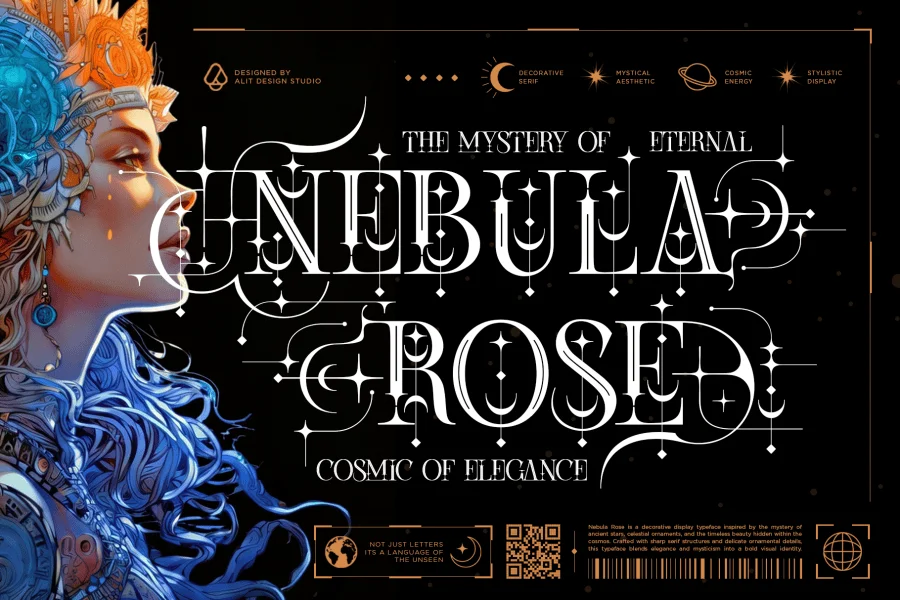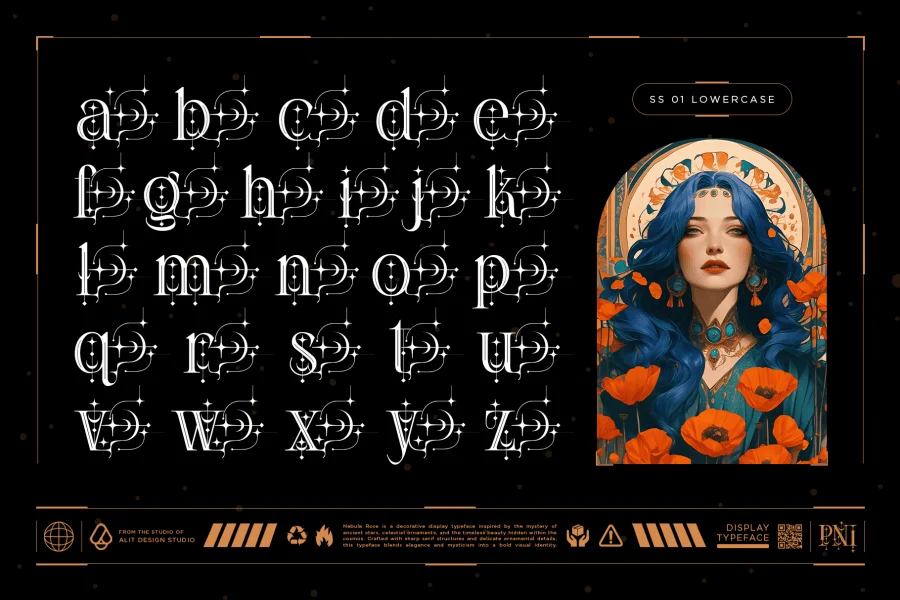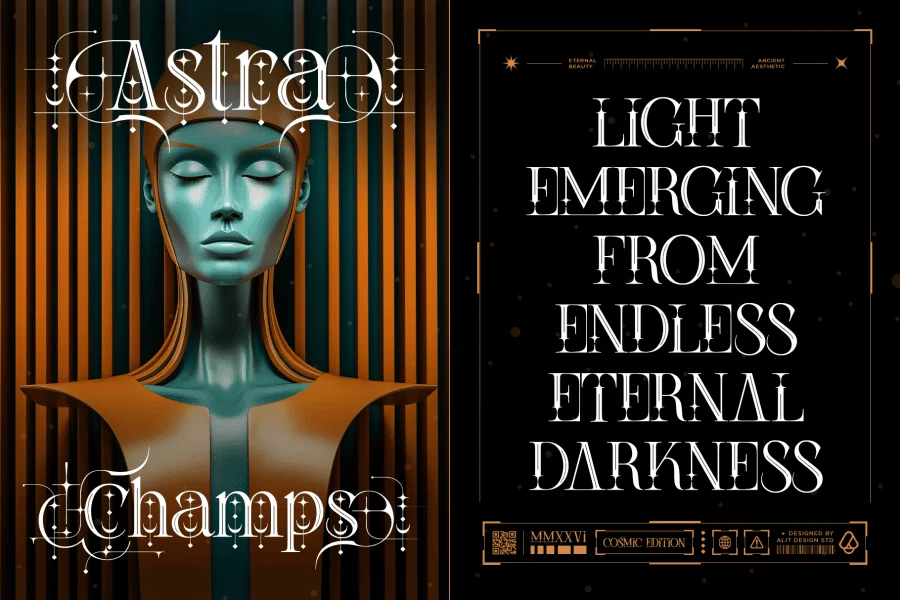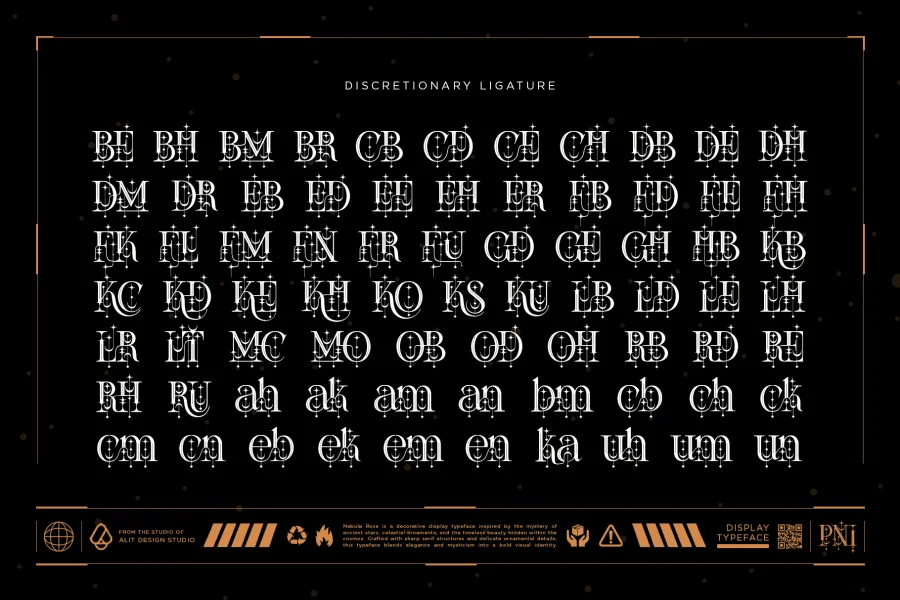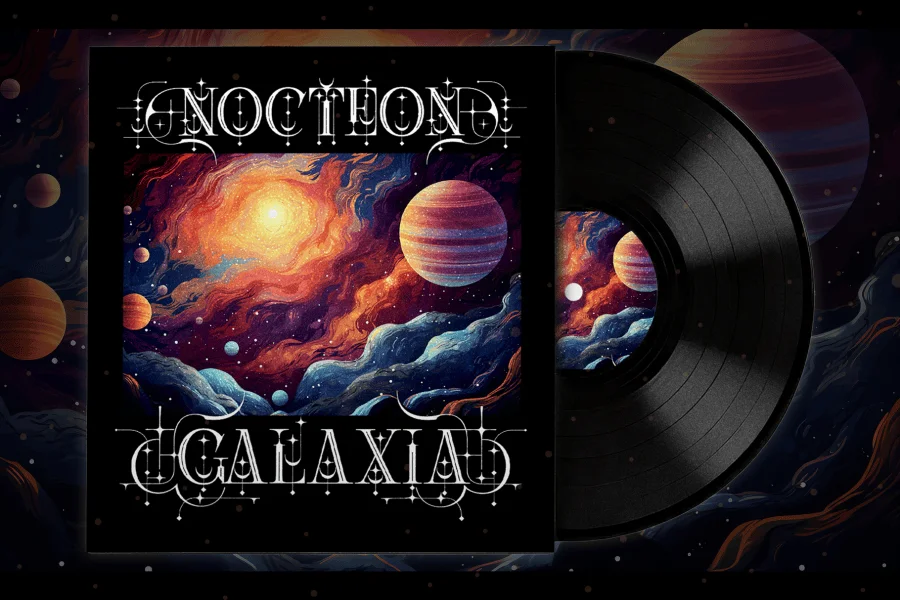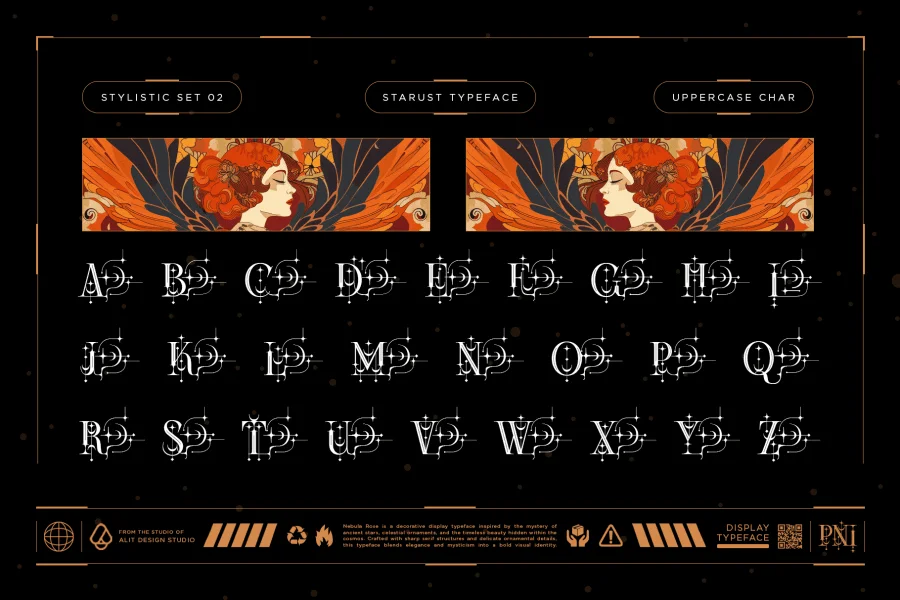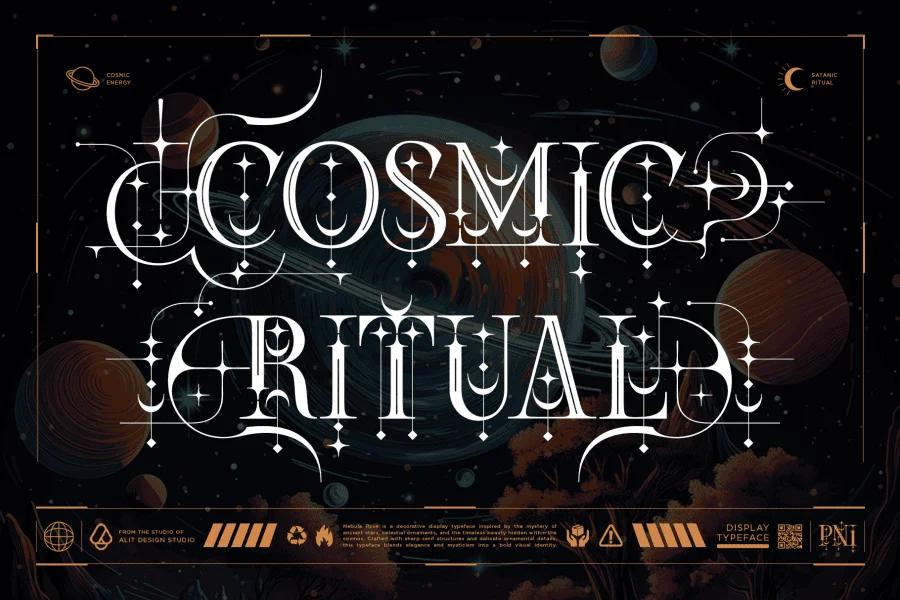
Starust Font
Starust Typeface – A Celestial Decorative Display Serif
Embark on a mystical journey through the cosmos with Starust Typeface, an intricate, elegant, and highly decorative display serif that blends classical foundations with enchanting, starry motifs. Inspired by the mystery of ancient stars and the delicate beauty of celestial ornaments, Starust is designed to make a bold visual statement.
Where classic serifs meet futuristic elegance, Starust shines. Crafted with a meticulous eye for detail, this font features delicate line-work connections, starry terminals, and crescent moon shapes integrated seamlessly into its letterforms. This unique design language elevates your projects, offering a profound blend of elegance and mysticism.
This typeface isn't just a set of letters; it’s a complete creative toolkit. With a massive 831 glyphs included, Starust provides ultimate flexibility and artistic freedom.